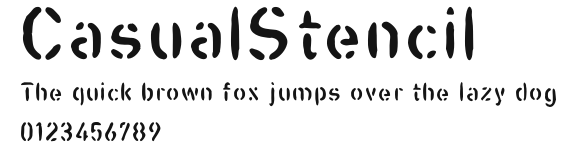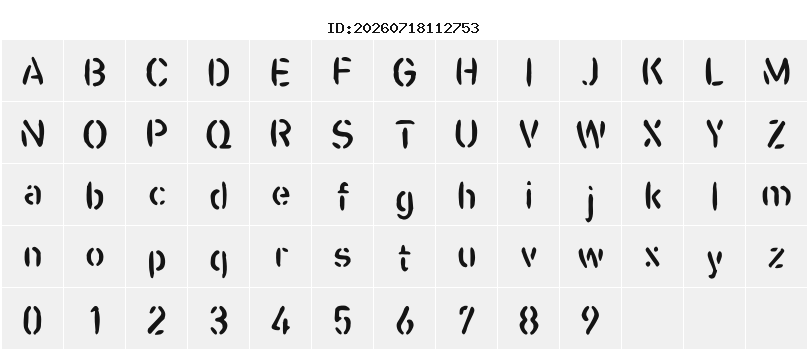
CasualStencil Preview
• Font Name: CasualStencil
About CasualStencil.ttf
CasualStencil.ttf is a modern, elegant sans-serif font designed for ultimate readability and visual harmony. Perfect for branding, headlines, web design, and print materials.